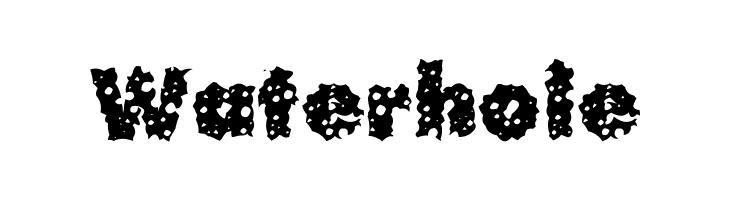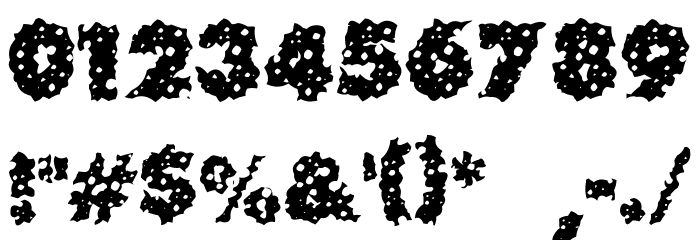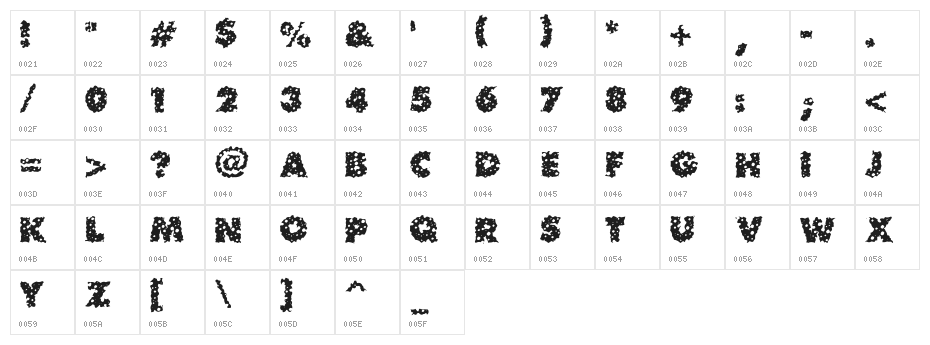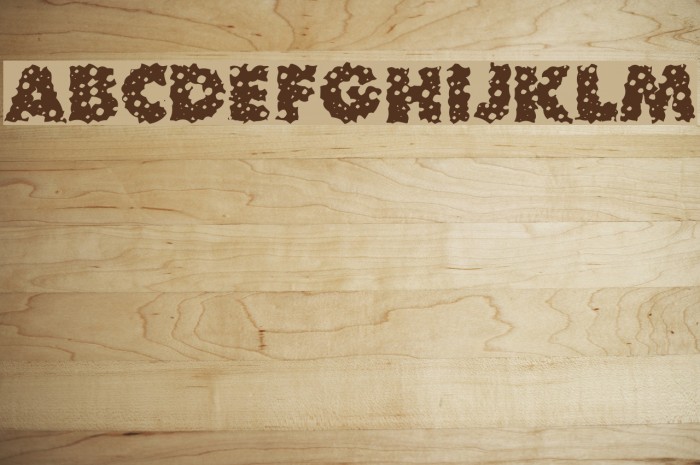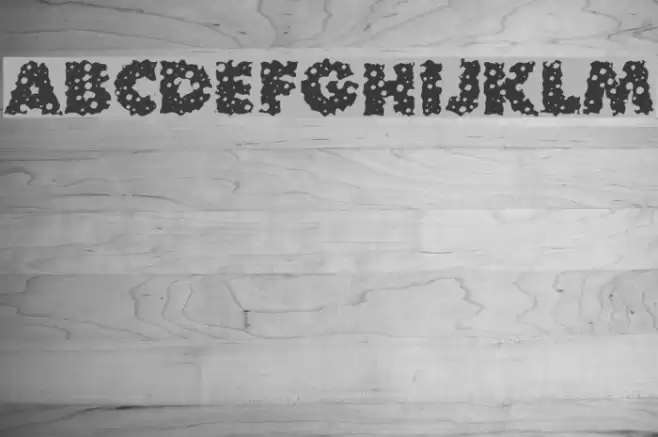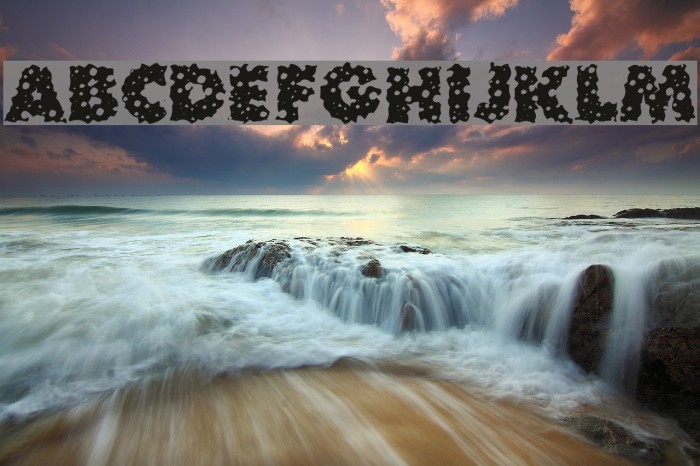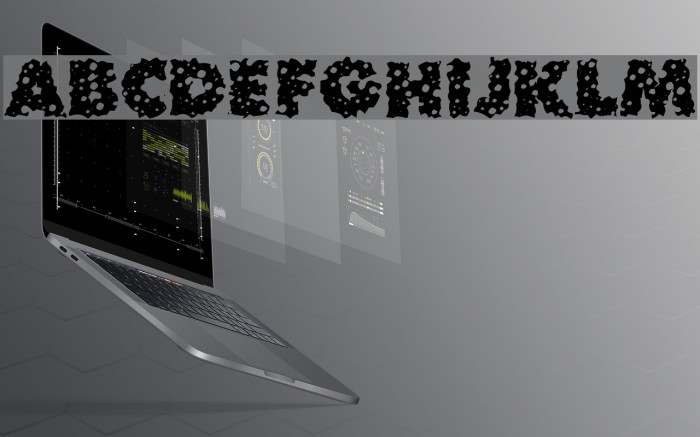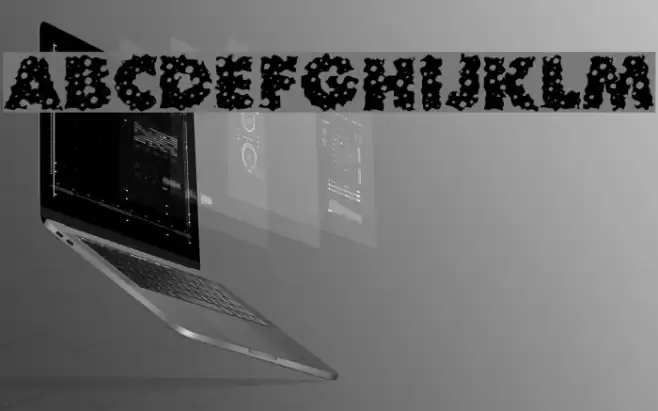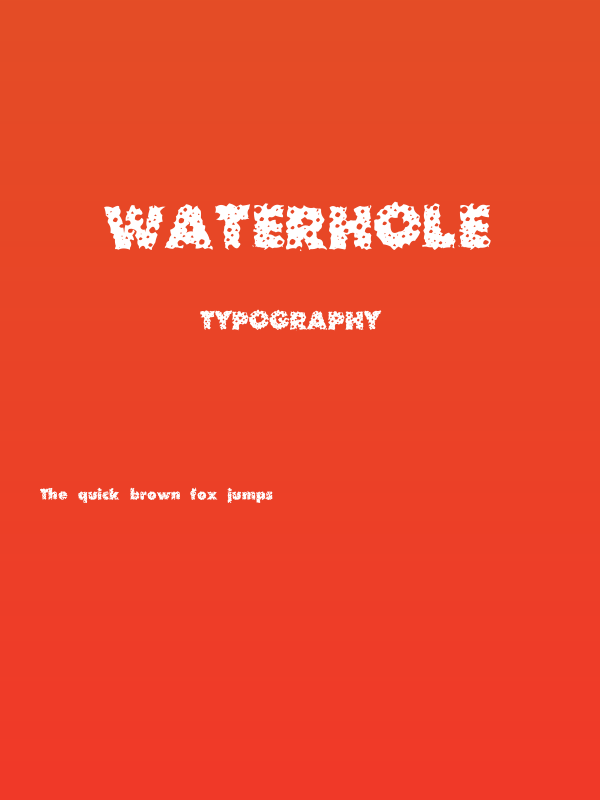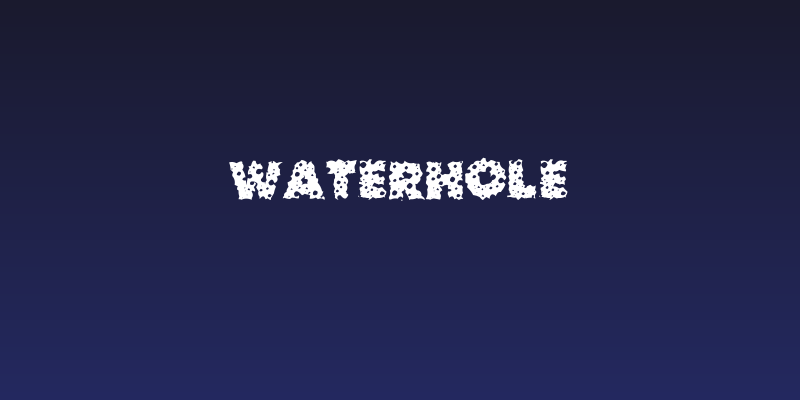
Waterhole Font
Waterhole Description
This font features a unique and playful design with a textured, bubbly appearance. Each character is filled with irregular, organic shapes that resemble bubbles or water droplets, giving it a lively and dynamic feel. The bold and chunky letterforms are highly decorative, making it stand out in any design. The font maintains a consistent weight throughout, with medium contrast in stroke thickness. Its whimsical style is perfect for projects that require a fun and eye-catching typeface.